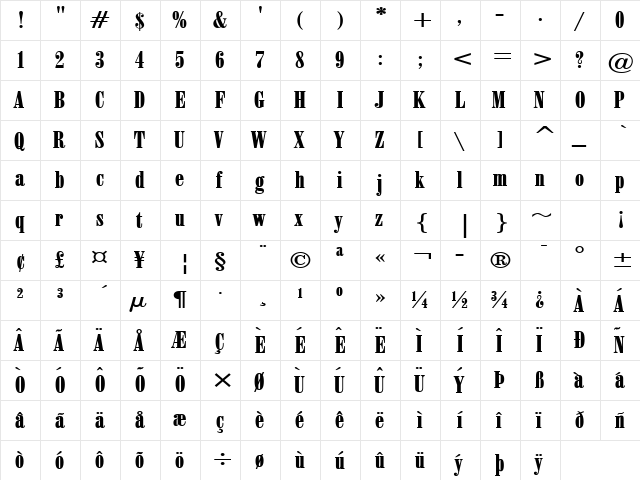
June 15 Wide Bold
Design Context for June 15 Wide Typeface
June 15 Wide offers clean, dependable letterforms without strong stylistic allegiance, making it a practical choice for designers who need flexibility. Its bold stroke weight gives it real presence on the page.